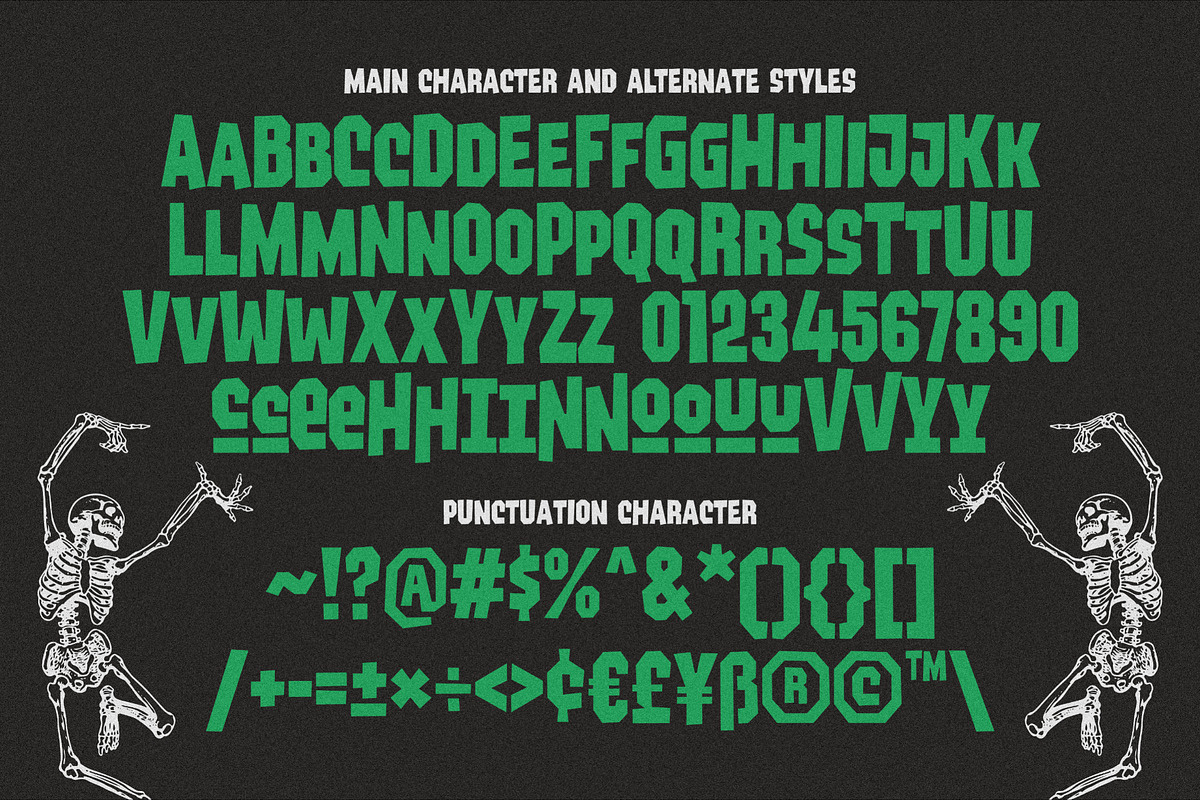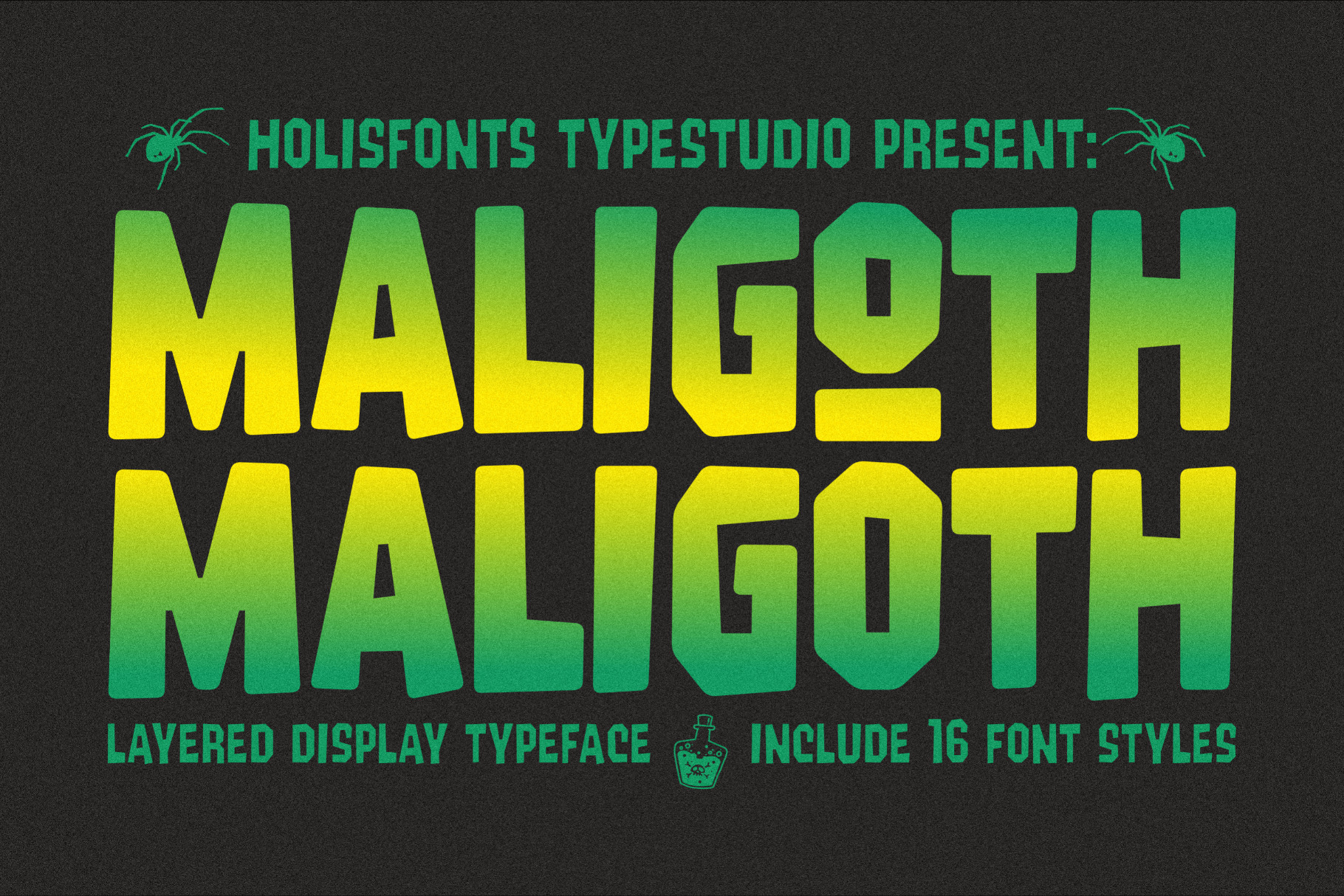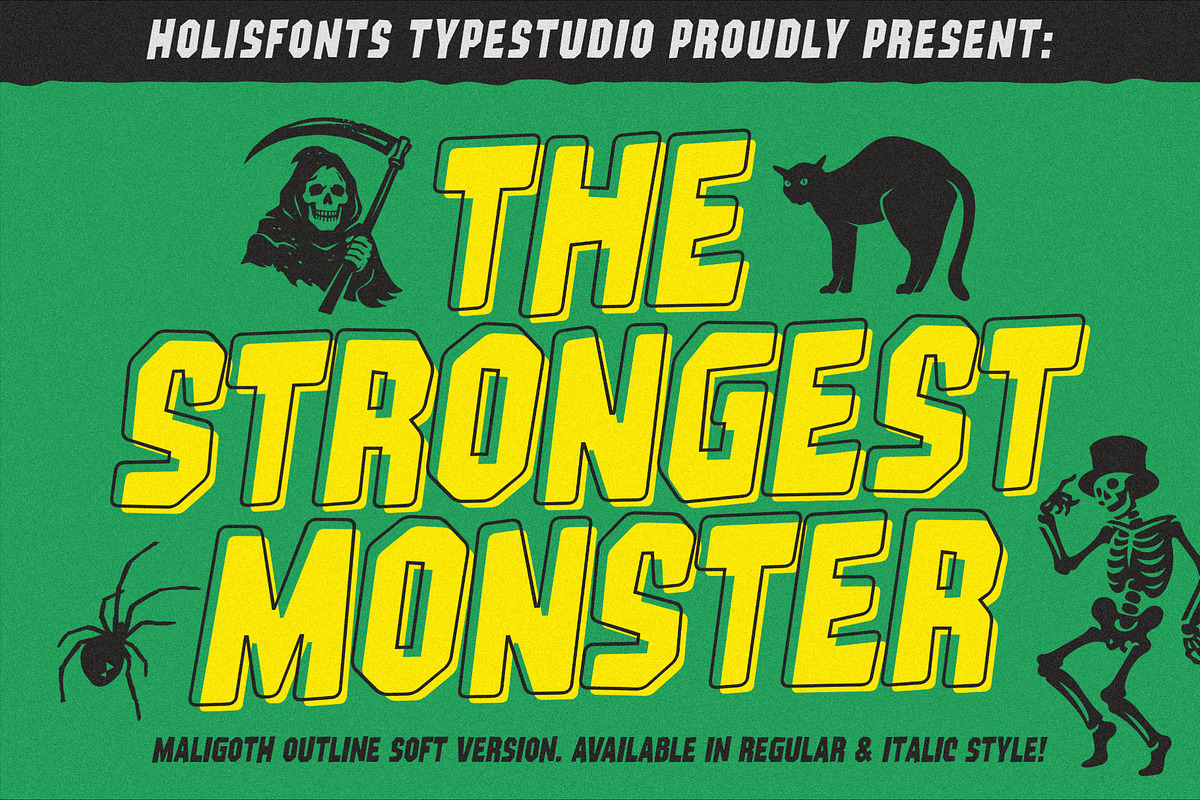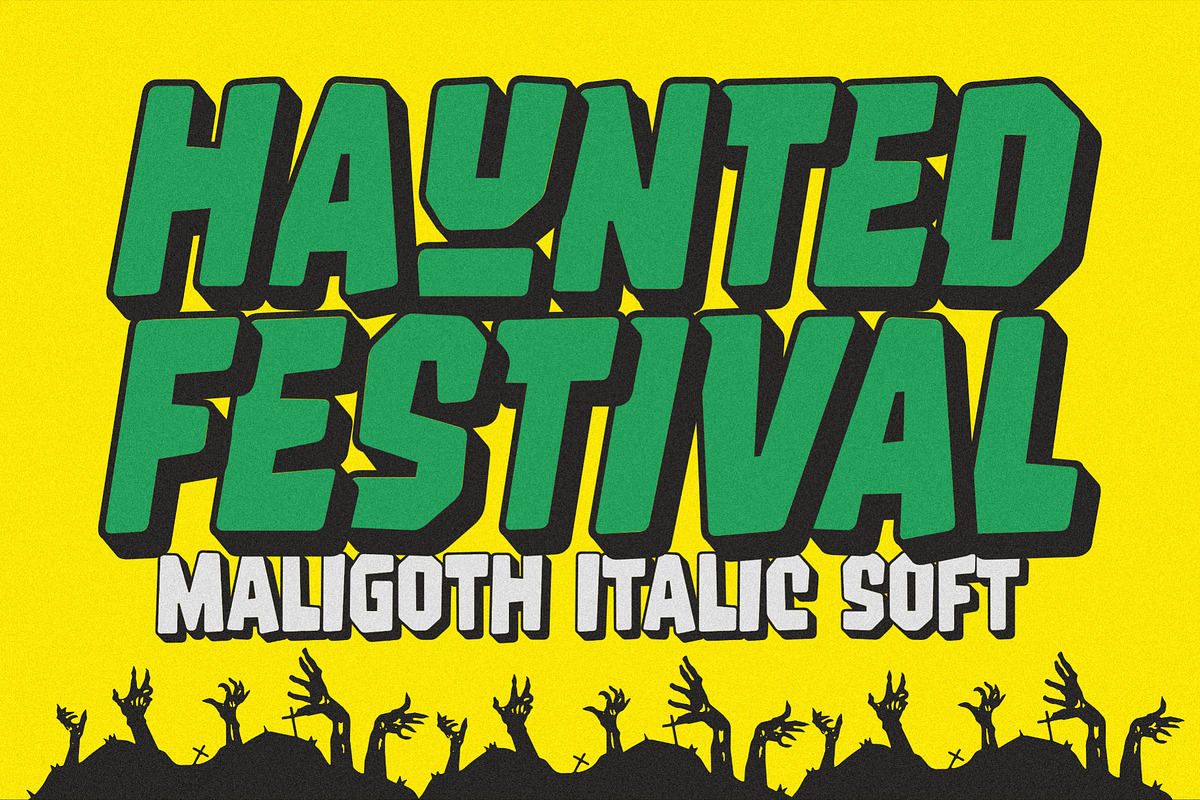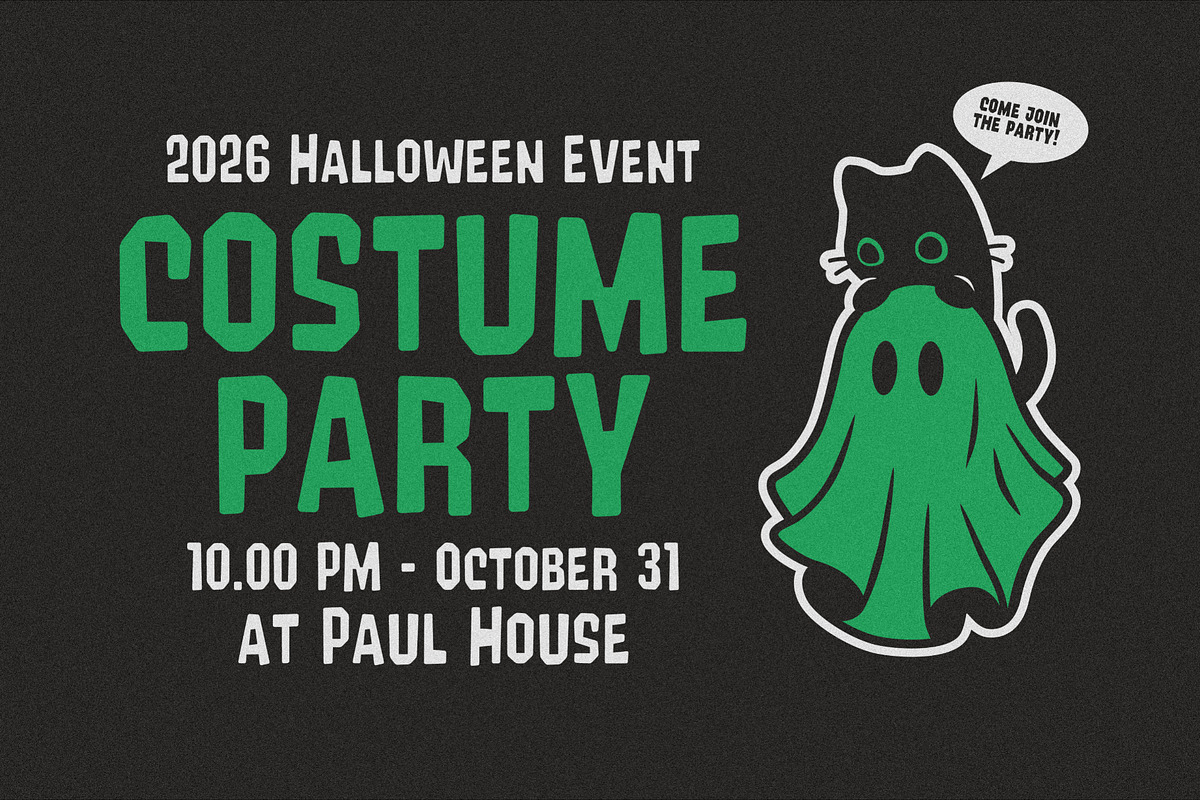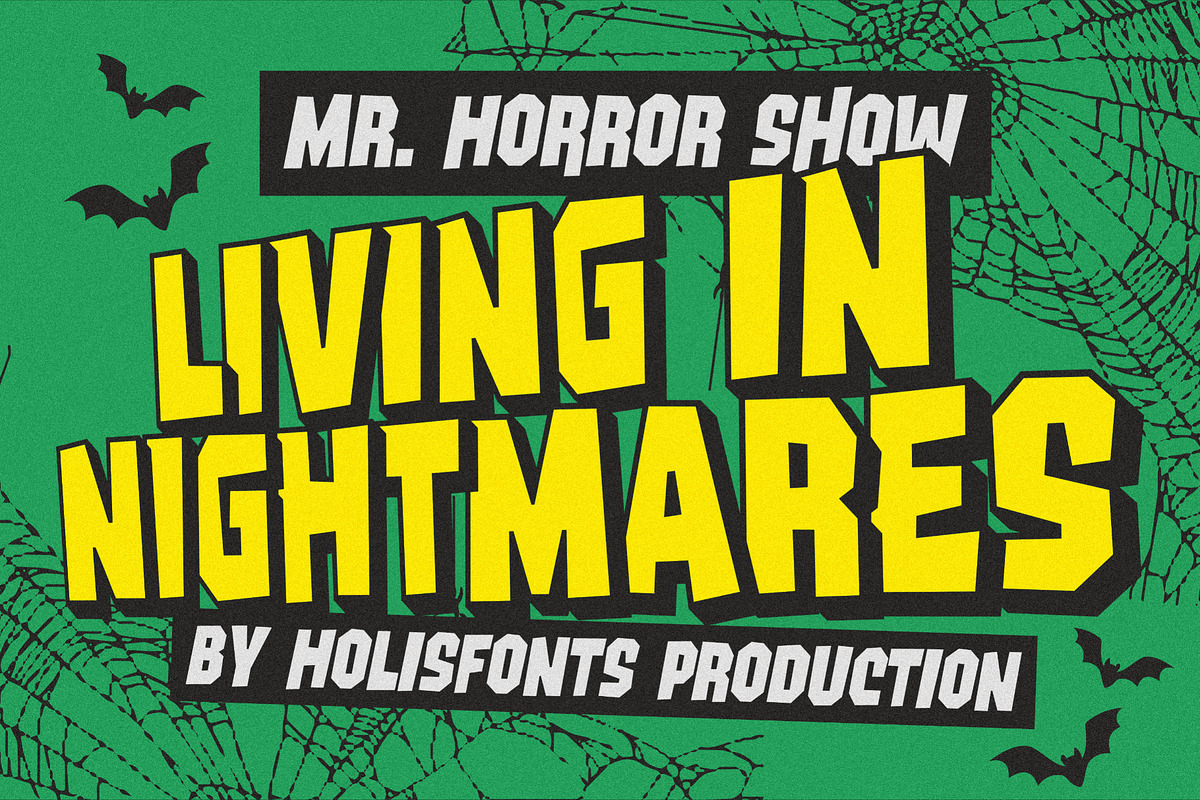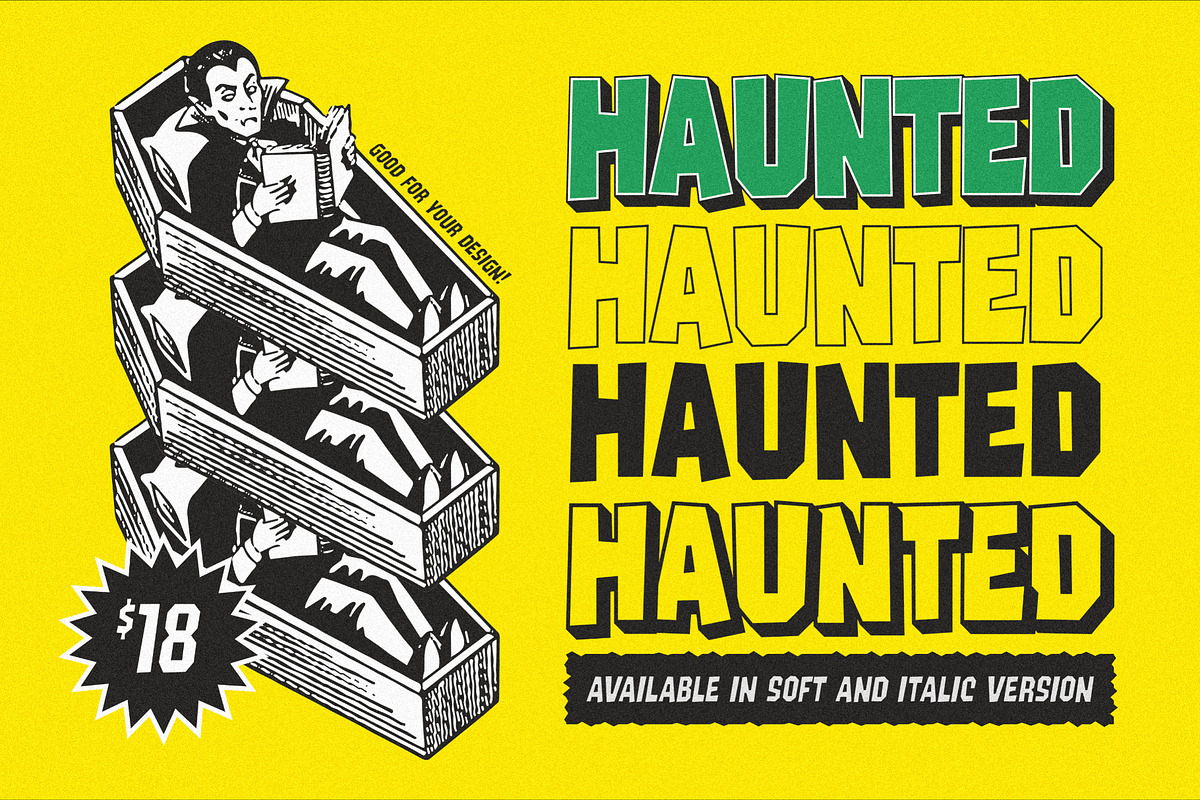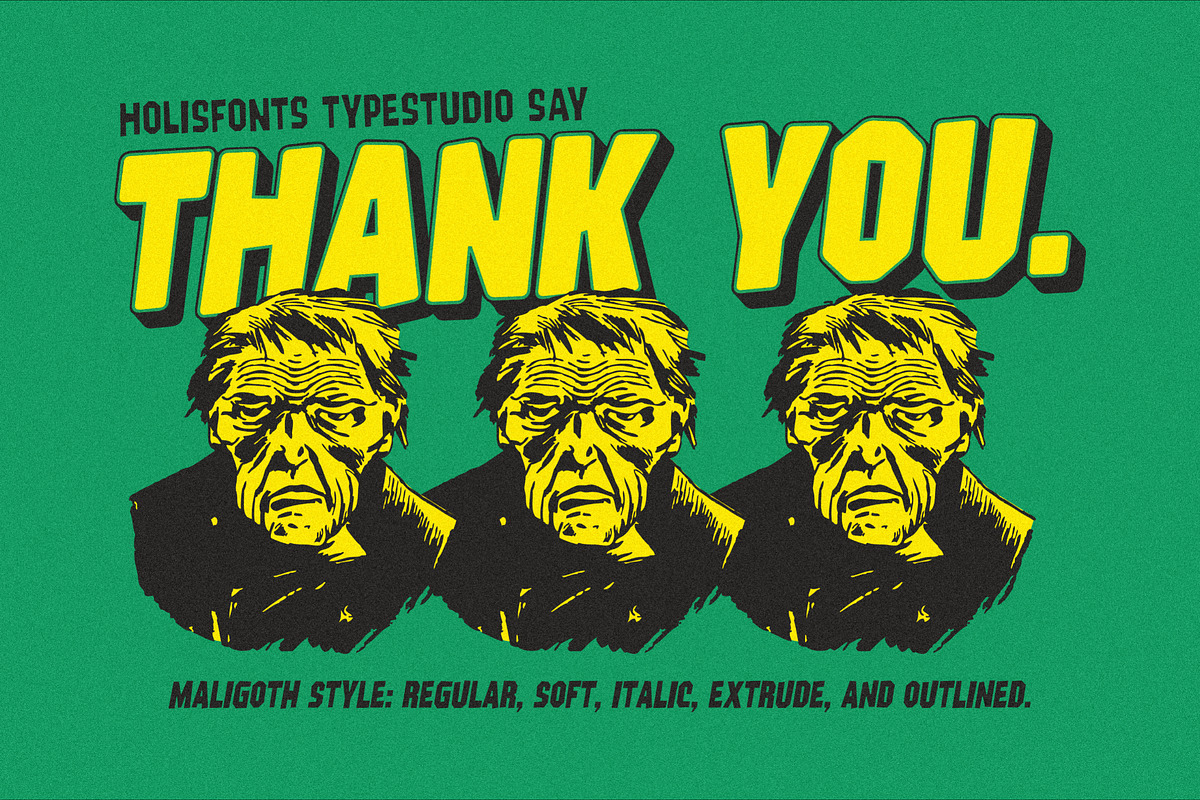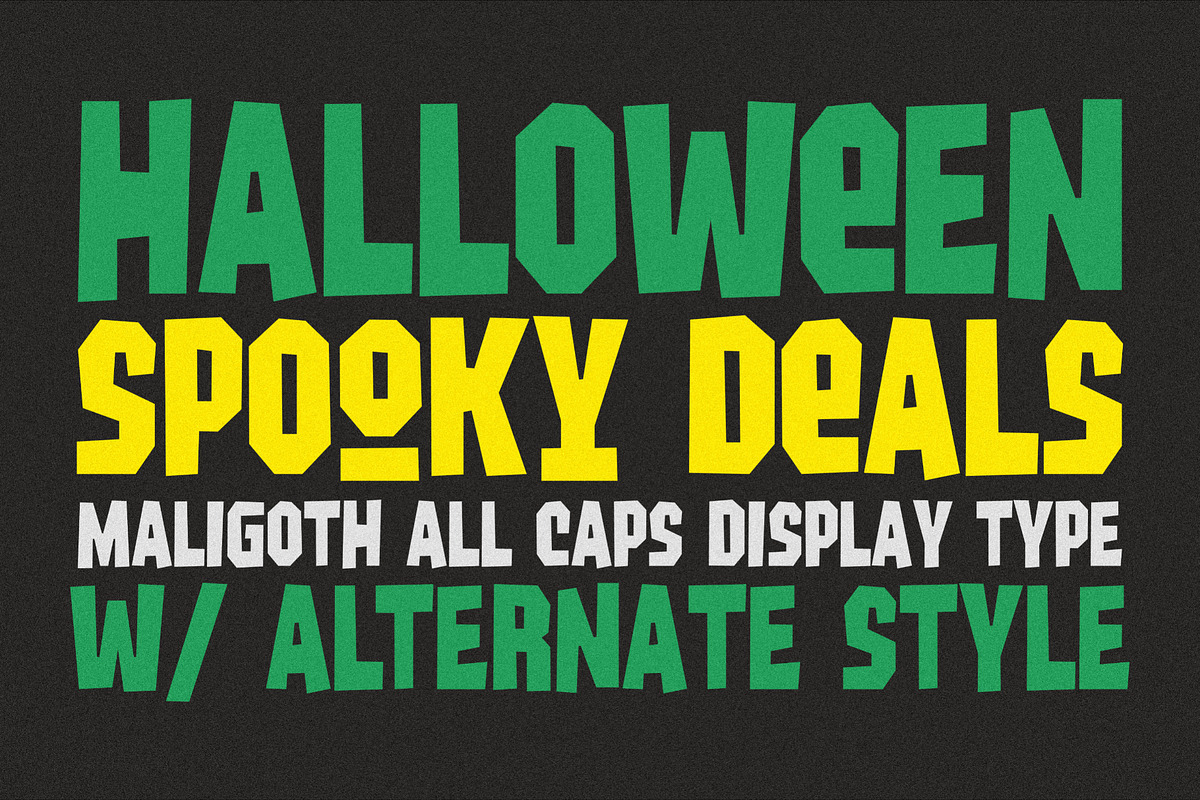
Maligoth Horror Fonts
Create bone-chilling designs that demand attention with this versatile, multi-layered collection. Whether you are crafting movie posters, dark branding, or eerie social media visuals, this pack provides the depth and intensity your work requires to stand out.
Layered styles are available that can be applied instantly.
Includes advanced alternate characters for unique text shaping
Perfectly suited for horror, gothic, and dark-themed design projects
High-quality construction, available in sharp-angled and soft-edged styles.